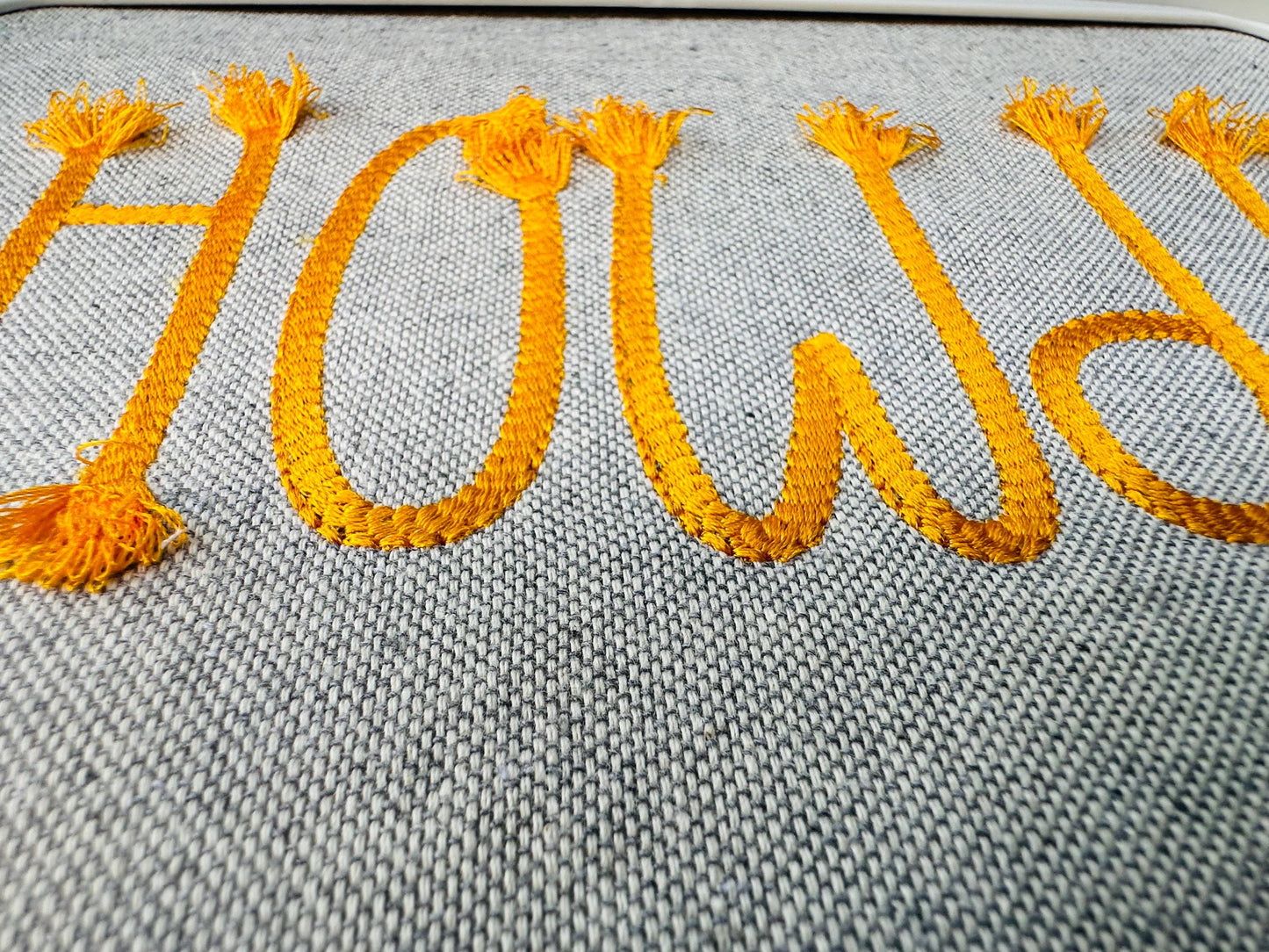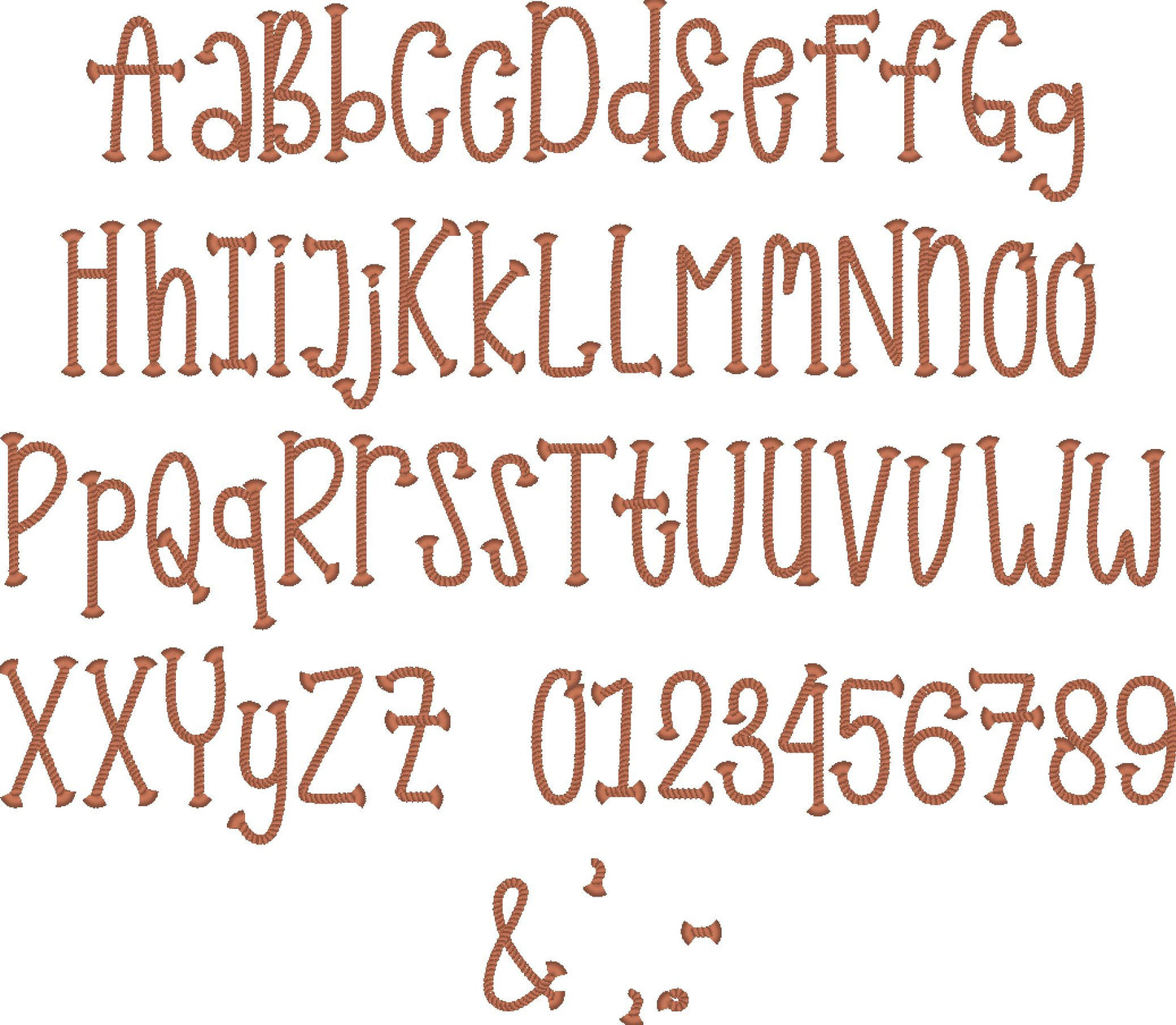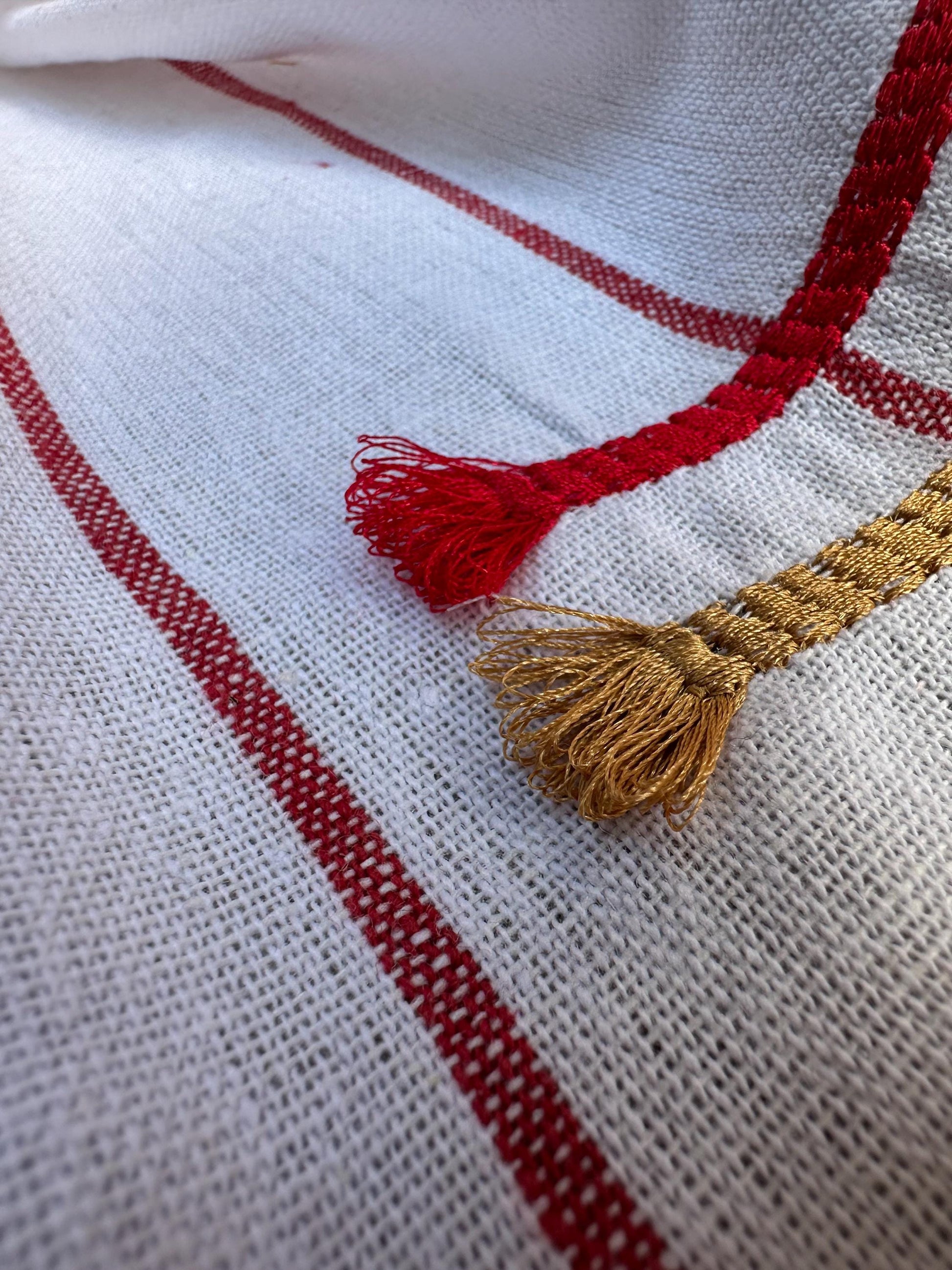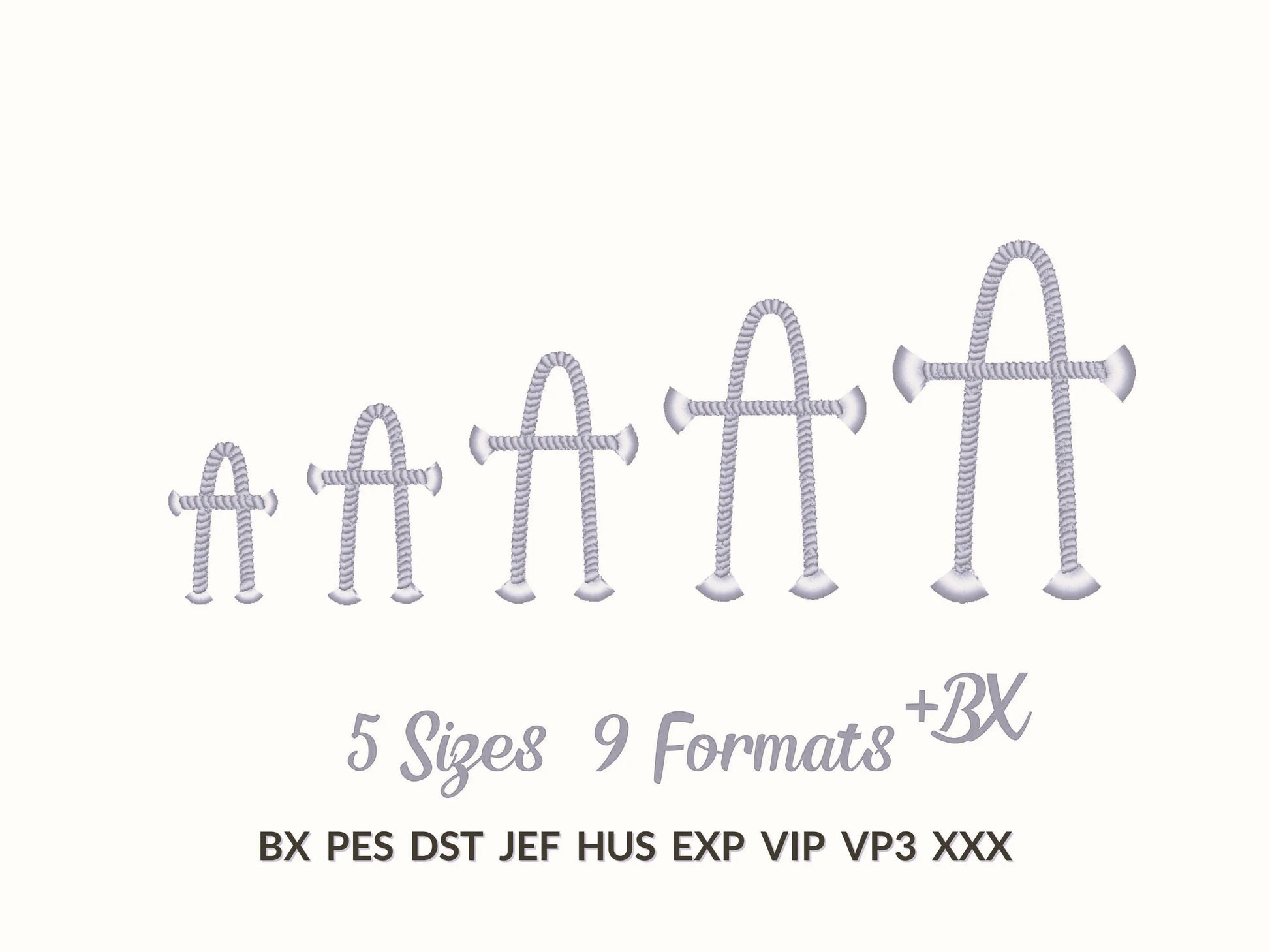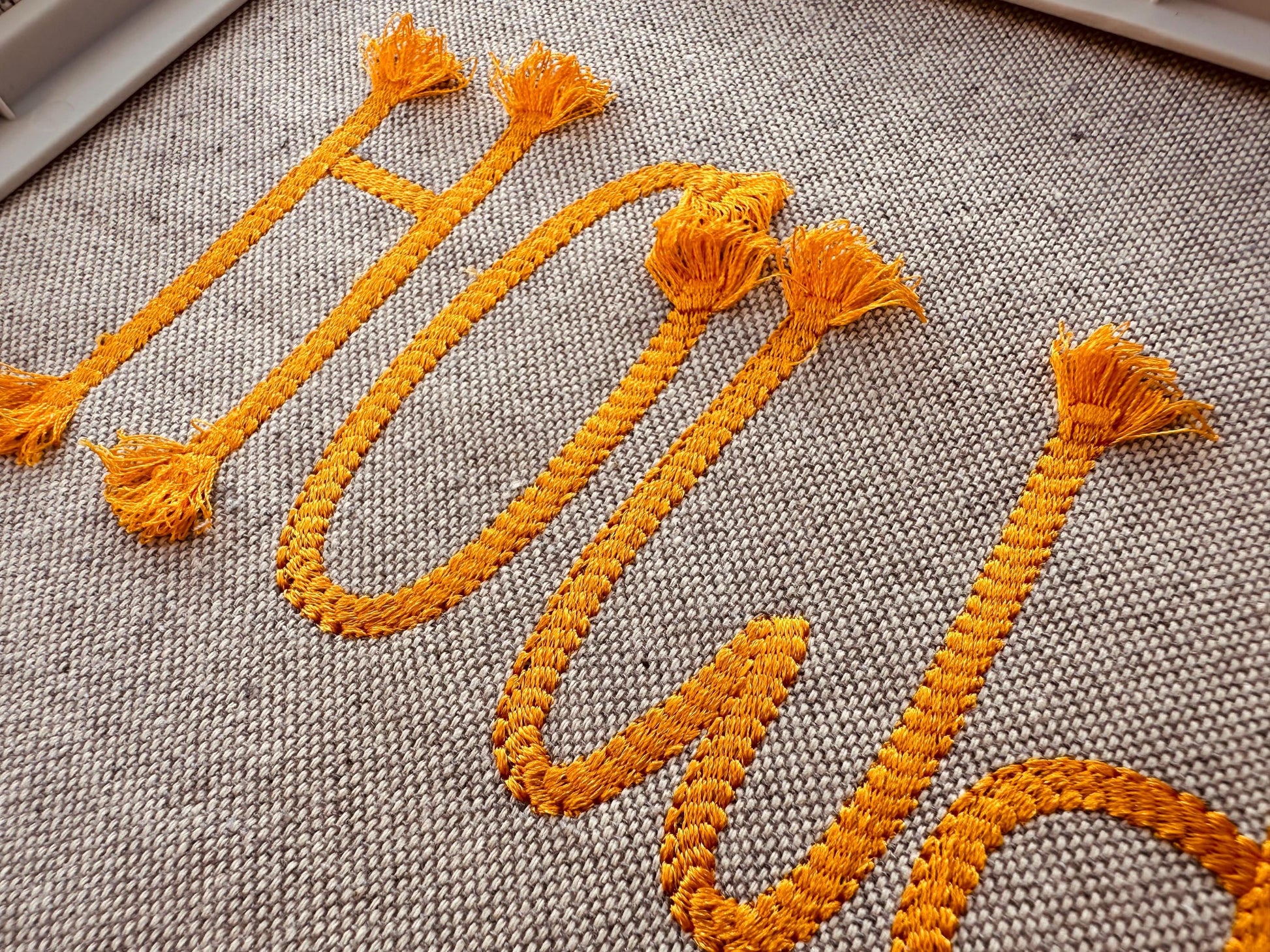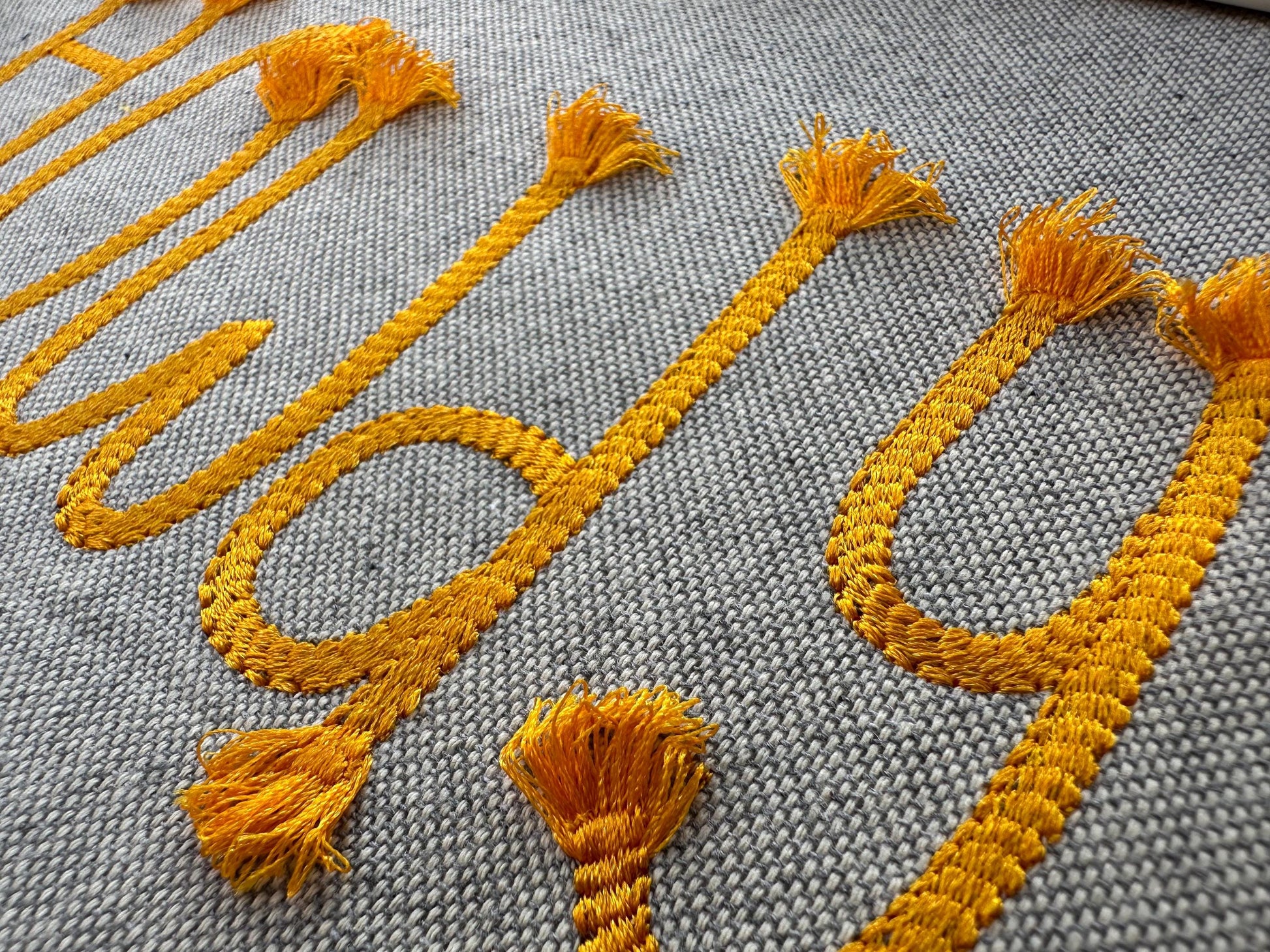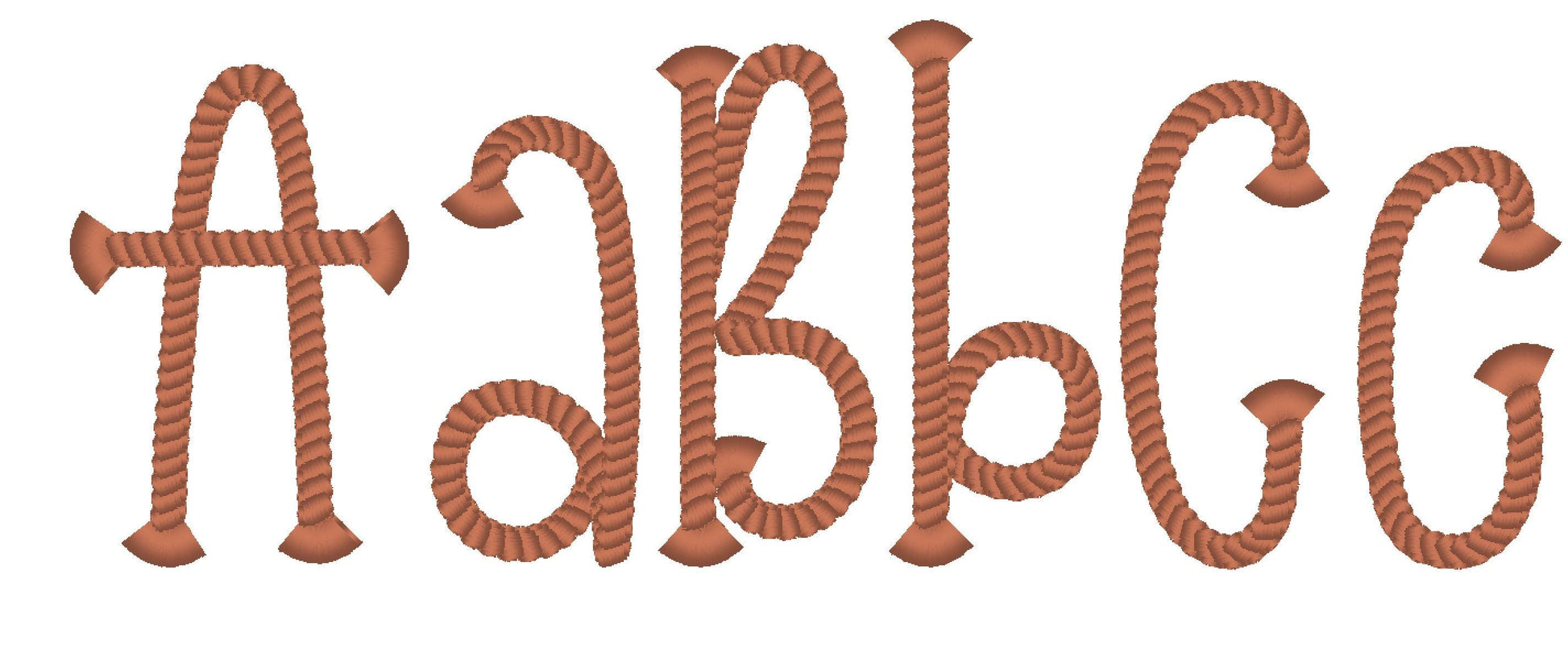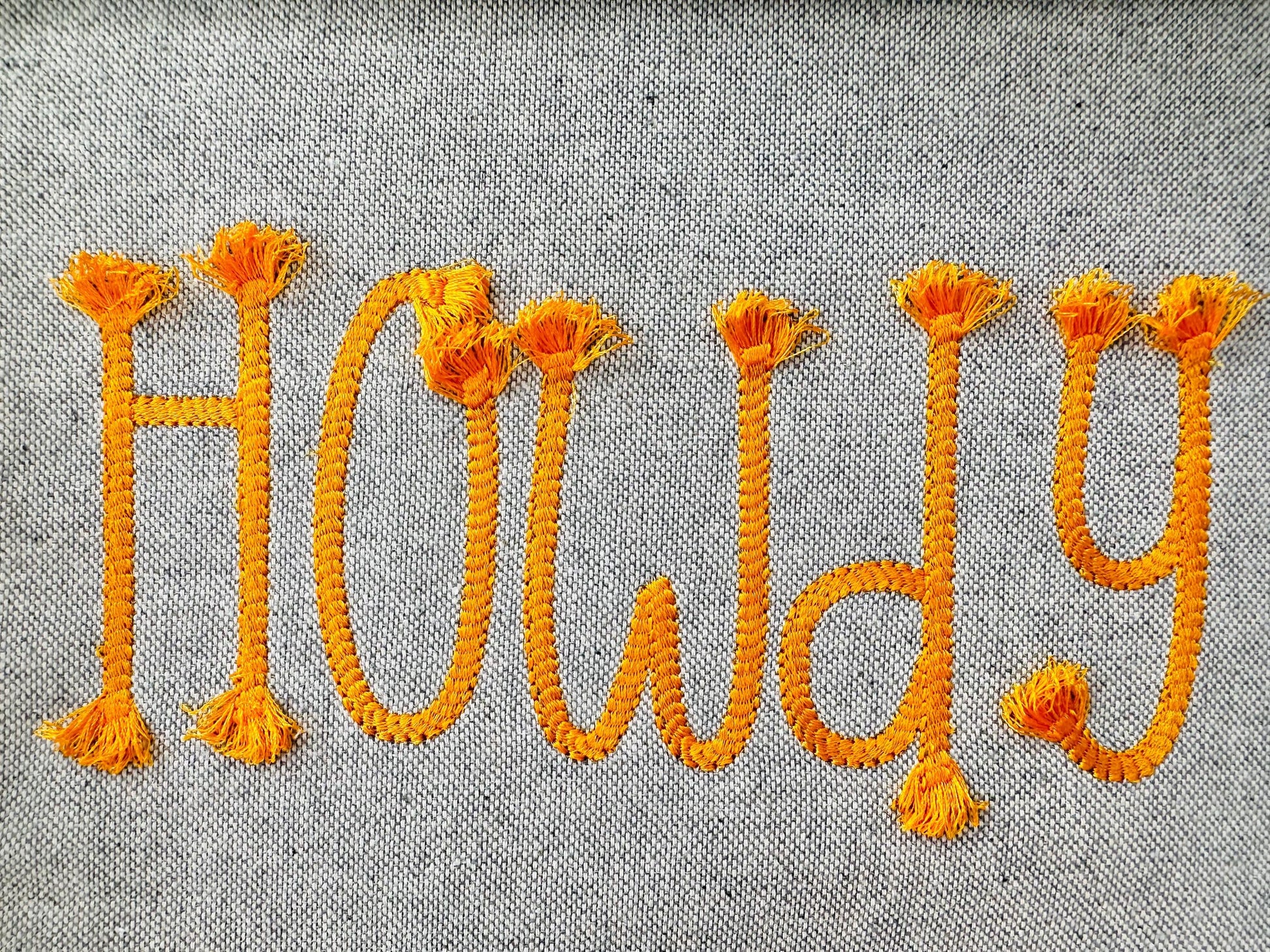
Or click to open the linkA rope font with fringed tassel ends, for a western lasso look. Great for cowboy and cowgirl names, rodeo gear and Texas decor.
Uppercase and lowercase letters, numbers 0 to 9 and punctuation. Five sizes: 2, 2.4, 3, 3.7 and 4.4 inches.